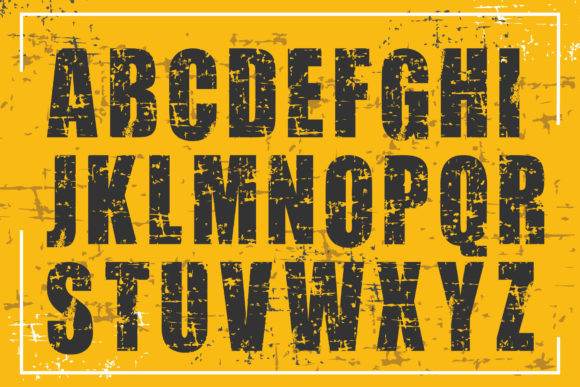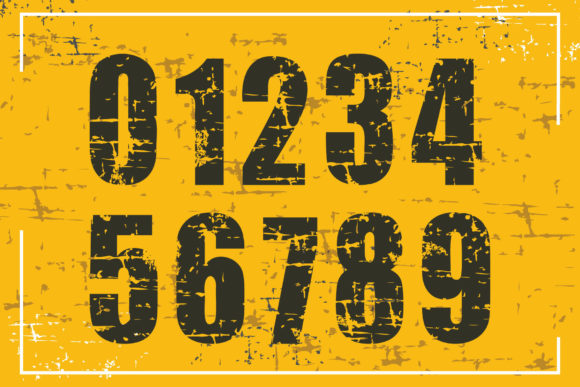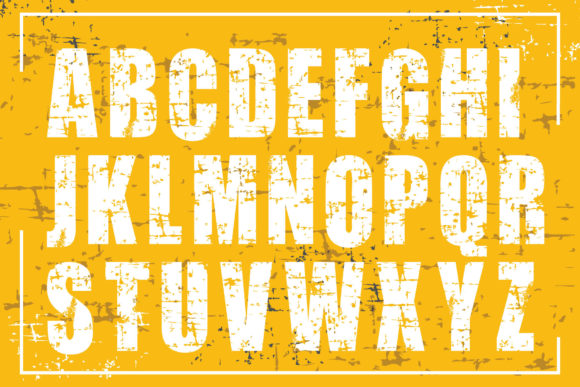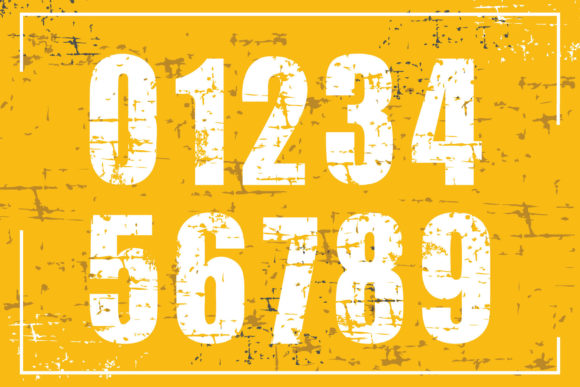
Introduction to Never Quit Font
Never Quit is a bold, incredibly cool, and assertive display font.
It can be used for various design ideas related to speed, sports, or both Have fun with this beautiful font and explore its endless variations.
Key Features of Never Quit Font